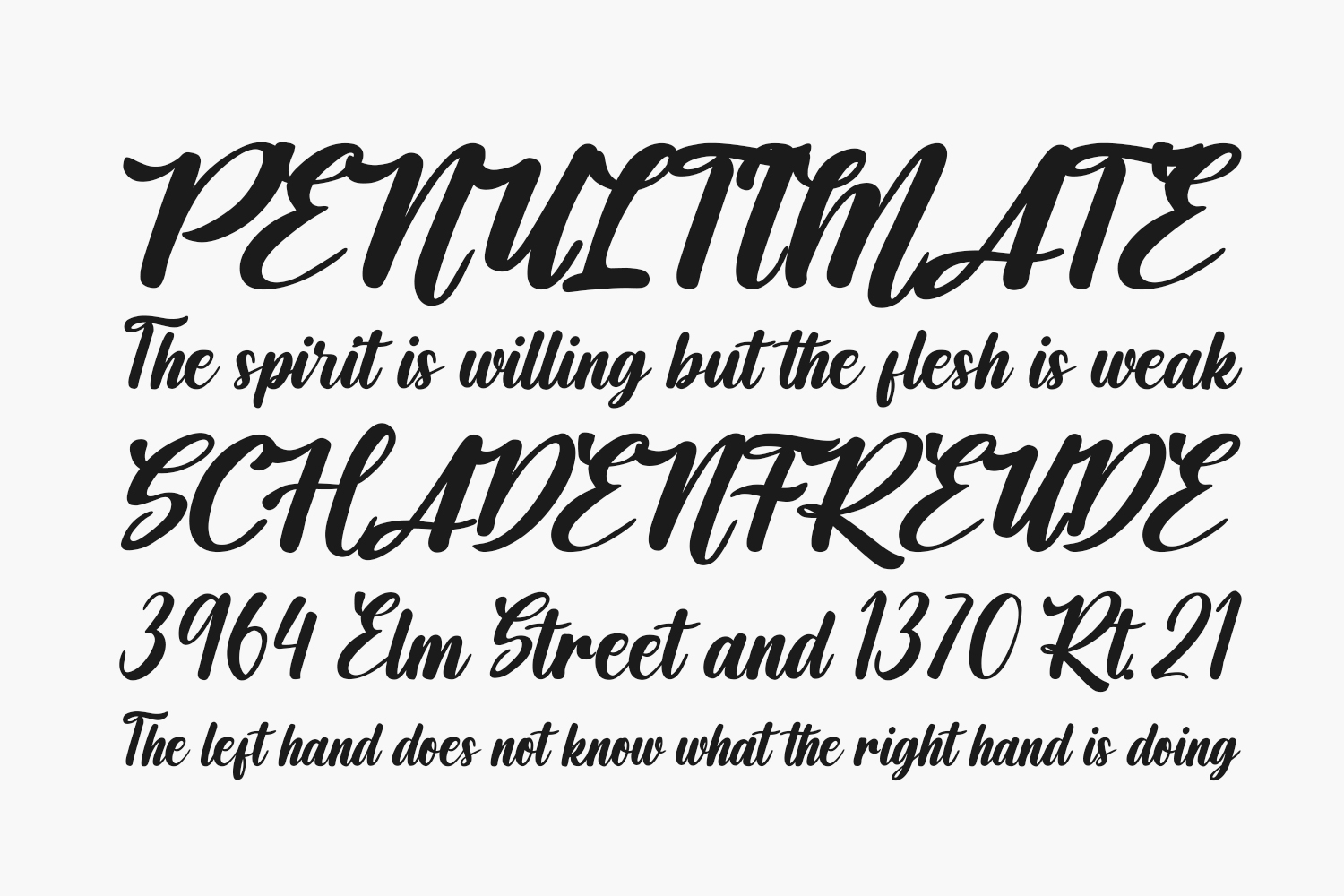
Angelist Free Font – Elegant Handwritten Script for Romantic & Stylish Design
Angelist is an elegant and expressive handwritten script font designed by Ikrar Bey Khubaib to bring warmth and charm to your creative projects. With its smooth strokes, soft curves, and flowing structure, this free decorative typeface works perfectly for crafting romantic logos, greeting cards, social media quotes, wedding invitations, product packaging, and more. Available in OTF format — ideal for designers seeking a stylish, readable handwriting style that instantly connects with audiences through authenticity.
- Elegant Handwriting Style: Mimics natural penmanship with soft curves and fluid connections for a warm, personal touch.
- Ideal for Invitations: Perfect for RSVP cards, formal stationery sets, or event posters needing a refined tone.
- Logos & Brand Identities: Adds charm to brand identities for lifestyle blogs, handmade studios, or boutique shops needing a warm tone.
- Social Media Graphics: Creates bold text overlays for Instagram Stories, Pinterest pins, TikTok videos, and YouTube banners with a refined appeal.
- Wedding Invitations: Brings romance to formal stationery sets, envelopes, and bridal name typography with a hand-drawn feel.
- Packaging Design: Enhances product tags on candles, perfumes, artisanal goods, or handmade packaging requiring a premium look.
- Editorial Headers: Stands out in blog headers, magazine covers, and advertising campaigns needing a vintage-inspired handwriting presence.
To get the most from Angelist, pair it with minimalist sans-serif fonts like Qedysans or Rosehot for contrast and readability. Use this font at large sizes to highlight its expressive detailing and organic flow. For print work, apply textured paper or gold accents to enhance its elegant appeal. Try our interactive font preview tool below to test Angelist with your own text before downloading!
- Glyphs: Uppercase (A-Z), lowercase (a-z), numerals, punctuation, basic Latin characters.
Designed by Ikrar Bey Khubaib